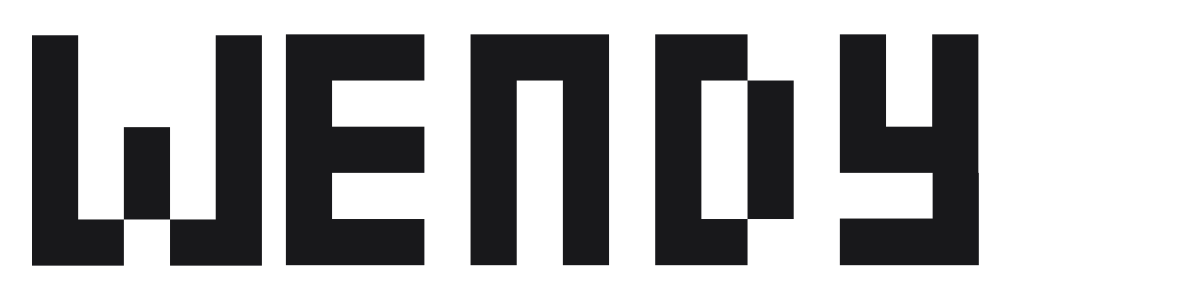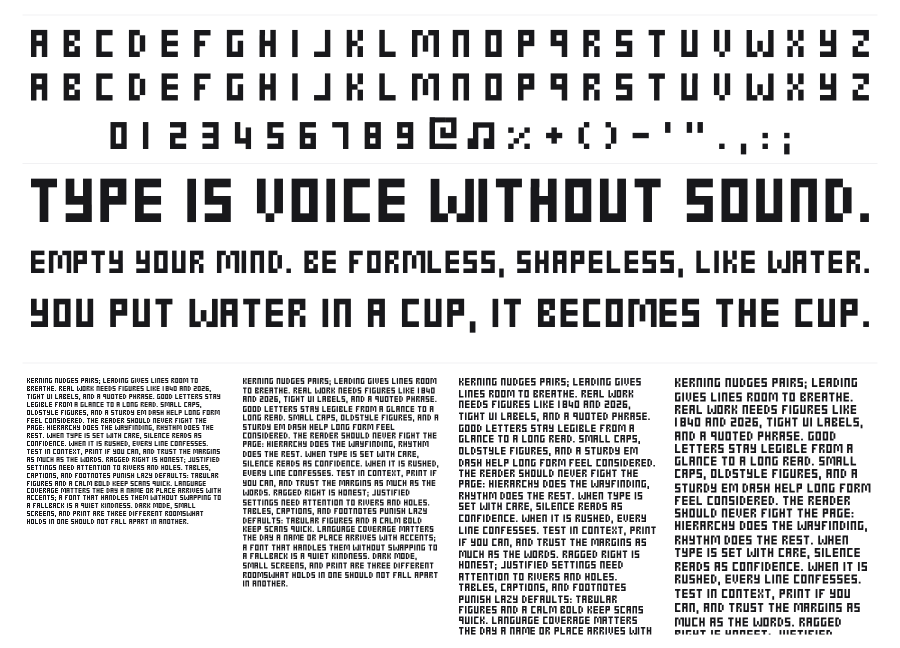
Wendy
Wendy is a bold 8-bit pixel font built from uniform square modules, channeling the look of classic arcade and early home computer screens. Every character sits on a strict grid with no stroke variation and sharp right-angle corners throughout. It carries strong retro-gaming energy without trying to be anything else.